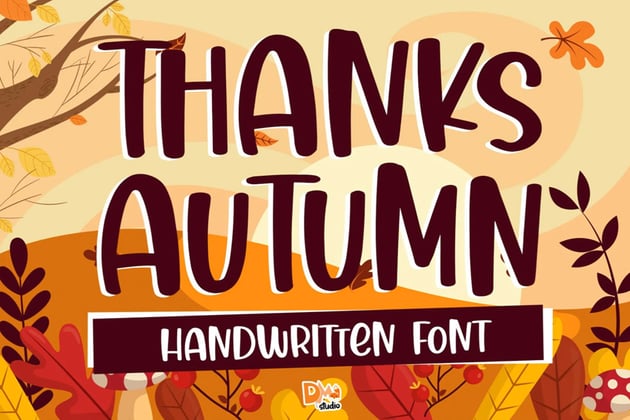
+23 Cute Fall Fonts References
+23 Cute Fall Fonts References. Web cute fall font below you can discover our cute fall font designs, graphics and crafts. Web check out our cute fall font selection for the very best in unique or custom, handmade pieces from our shops.
This font pack is made with a distinctive design taste and can be used for different. The generated cute fonts are both fancy and stylish. Web cute fonts generator produces unlimited cool fonts that will surely please you.
Web Stringlabs Creative Fall Fonts.
Just copy and paste them in your desired places. The generated cute fonts are both fancy and stylish. Beautify is a chunky script with a bunch of alternate characters for really customizing your projects.
Are You Looking For The Perfect Fall Fonts?.
Web explore 36,556 stunning fall fonts to download and find the perfect match that fits your next web and print design projects of all sizes. If you want to evoke that special fall feeling in your designs, you’ll need to use the right kind of font. Web cute fall font below you can discover our cute fall font designs, graphics and crafts.
Web Last, But Not Least, The Grande October 4 Font Offers A Trendy Design For Printable Projects And Fall Holiday Signs.